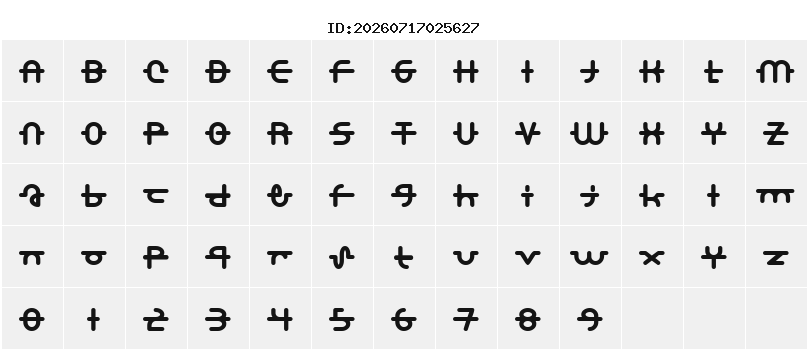
• Font Name: A.Lewis
About A.Lewis.ttf
A.Lewis.ttf is a modern, elegant sans-serif font designed for ultimate readability and visual harmony. Perfect for branding, headlines, web design, and print materials.